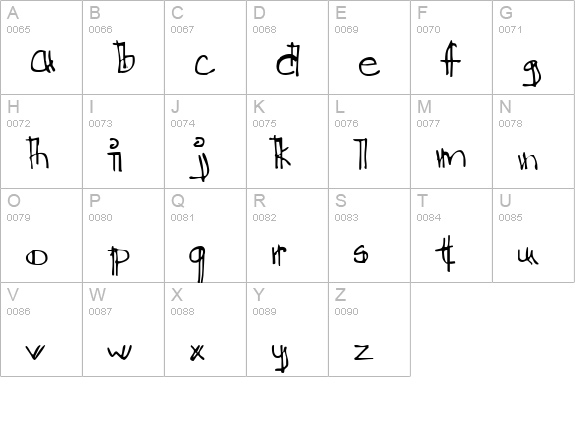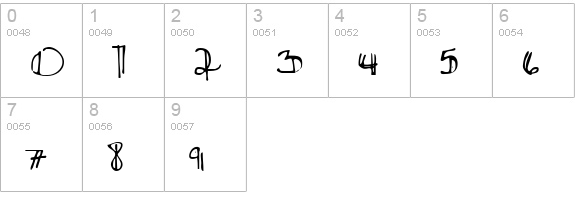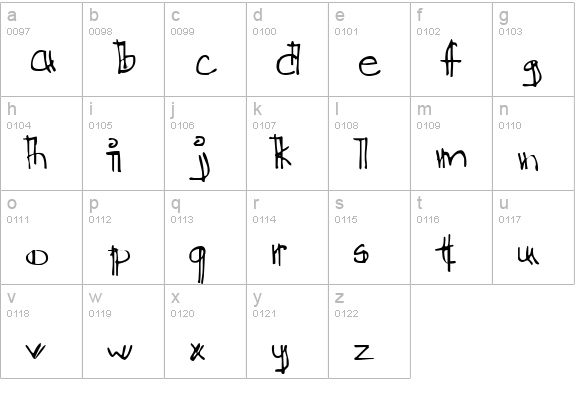
Ditch the Logical Font Details
Ditch the Logical font is a whimsical and eye-catching typeface that adds a playful touch to any design. With its unique and quirky letterforms, this font is perfect for projects that require a fun and creative look. Whether you're designing posters, invitations, or social media graphics, Ditch the Logical font will make your text stand out and capture attention. Best of all, Ditch the Logical font is available for free download at FontsMarket.com. This means you can easily access this charming font and incorporate it into your projects without any cost. Don't miss out on the opportunity to add a touch of whimsy to your designs with Ditch the Logical font – download it today and let your creativity shine!